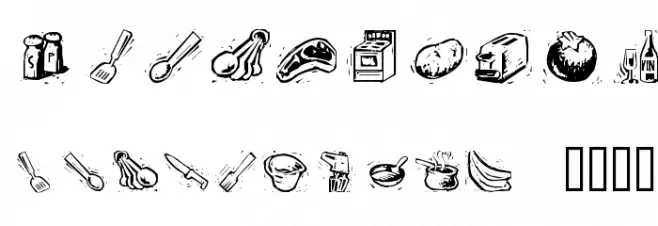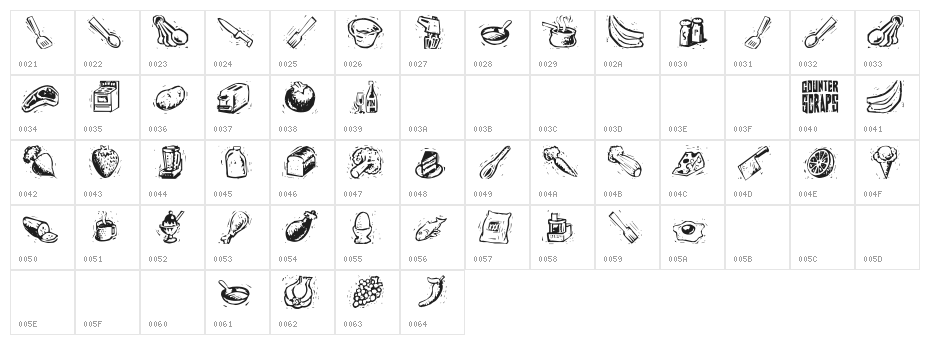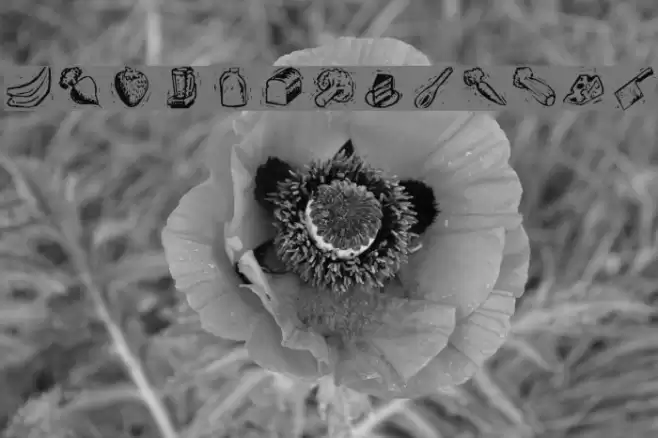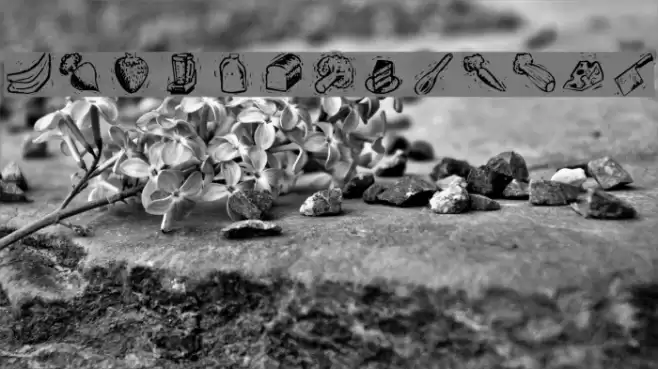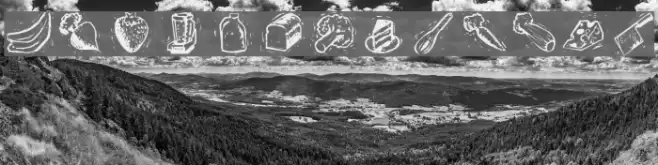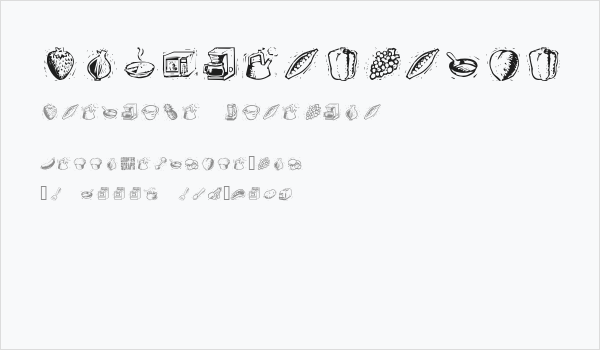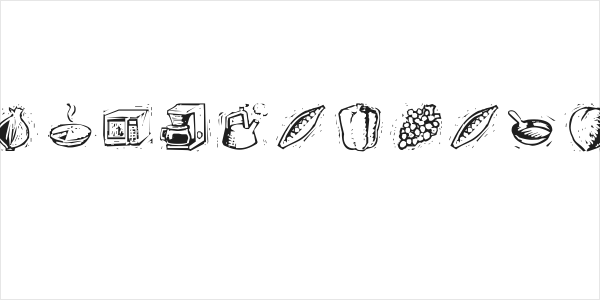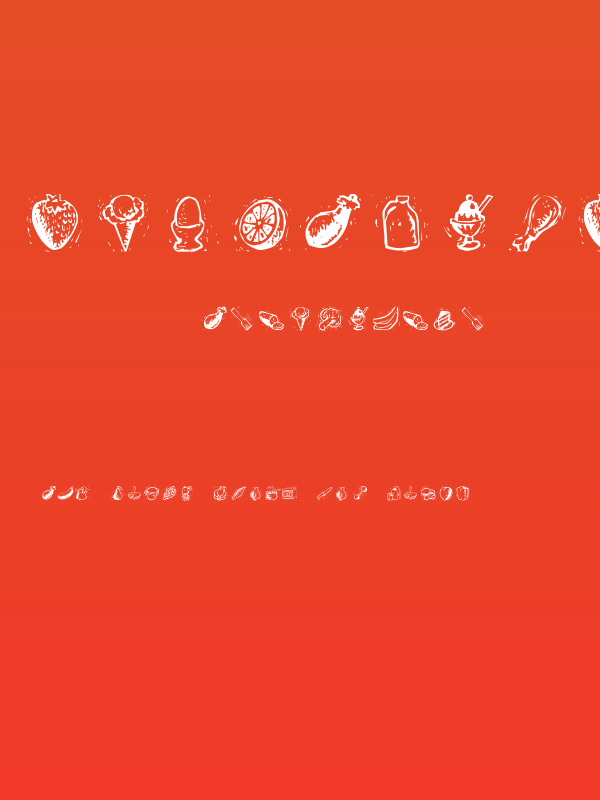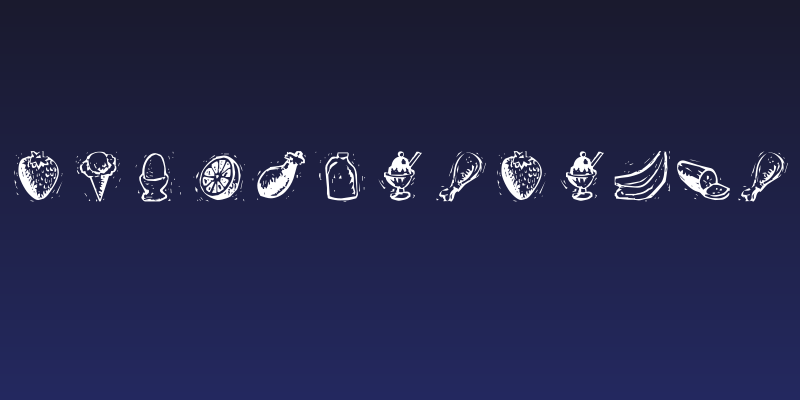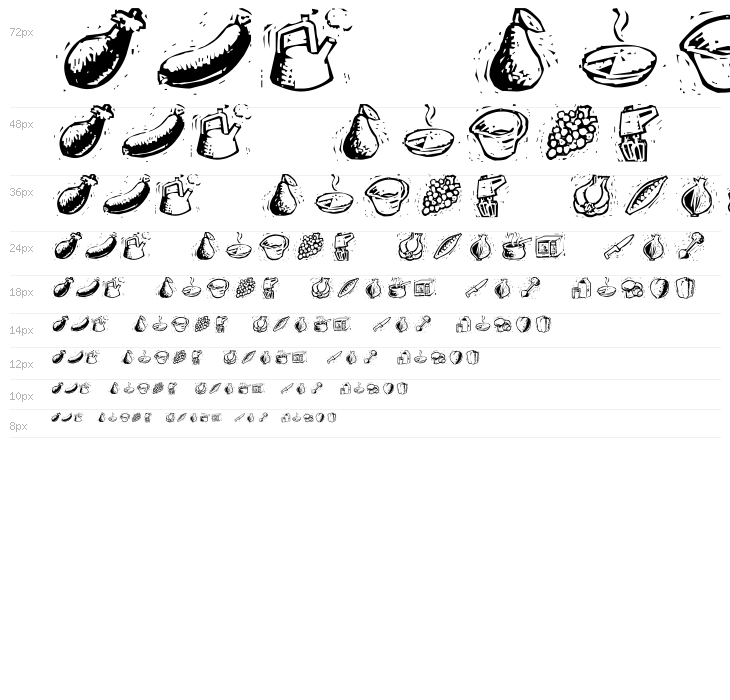
Counterscraps Font
| Overall Style | Decorative, Whimsical, Hand-drawn |
| Use Case | Icons, Decorative elements, Thematic headings |
| Proposed Projects | Recipe books, food blogs, restaurant menus, cooking apps, educational materials for kids. |